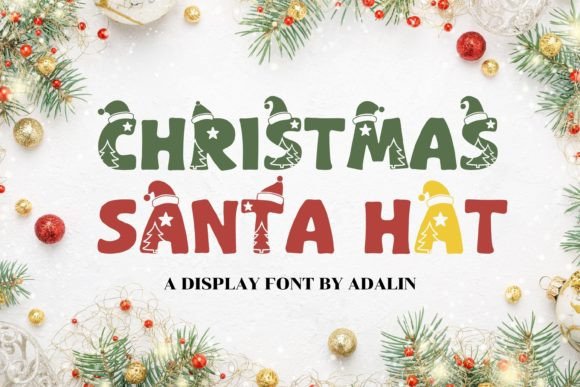
Christmas Santa Hat Font: A Cute Decorative Font for Your Holiday Projects
Are you looking for a fun and festive font to add to your holiday projects? Look no further than the Christmas Santa Hat Font! This adorable font is perfect for crafting, Cricut, Procreate, Christmas gifts, kids’ projects, Christmas cards, social media designs, signs, t-shirt designs, greeting cards, invitations, mugs, banners, and much more.
What is Christmas Santa Hat Font?
Christmas Santa Hat Font is a unique and creative font that features a cute and playful design. The font is inspired by the iconic Santa hat and is perfect for adding a touch of holiday cheer to your projects. The font is highly versatile and can be used for a wide range of applications, from digital designs to print projects.
Features of Christmas Santa Hat Font
- Cute and Playful Design: The Christmas Santa Hat Font features a cute and playful design that is sure to add a touch of holiday cheer to your projects.
- Highly Versatile: The font is highly versatile and can be used for a wide range of applications, from digital designs to print projects.
Uses for Christmas Santa Hat Font
Christmas Santa Hat Font is a versatile font that can be used for a wide range of applications. Here are some ideas for using this font:
- Crafting: Use the font to create festive crafts, such as holiday cards, gift tags, and decorations.
- Cricut: Use the font with your Cricut machine to create custom holiday projects, such as vinyl decals, iron-on designs, and paper crafts.
- Procreate: Use the font to create digital art and designs, such as holiday-themed illustrations and graphics.
- Christmas Gifts: Use the font to create custom holiday gifts, such as personalized mugs, t-shirts, and gift tags.
- Kids’ Projects: Use the font to create fun and festive holiday projects with kids, such as holiday cards, decorations, and crafts.
- Christmas Cards: Use the font to create custom holiday cards for friends and family.
- Social Media Designs: Use the font to create festive social media designs, such as holiday-themed graphics and posts.
- Signs: Use the font to create custom holiday signs, such as welcome signs and directional signs.
- T-Shirt Designs: Use the font to create custom holiday t-shirt designs.
- Greeting Cards: Use the font to create custom holiday greeting cards.
- Invitations: Use the font to create custom holiday invitations.
- Mugs: Use the font to create custom holiday mugs.
- Banners: Use the font to create custom holiday banners.
Tips for Using Christmas Santa Hat Font
Here are some tips for using Christmas Santa Hat Font:
- Experiment with Different Sizes: Experiment with different font sizes to find the perfect size for your project.
- Combine with Other Fonts: Combine Christmas Santa Hat Font with other fonts to create a unique and interesting design.
- Use with Images: Use the font with images, such as holiday-themed illustrations and graphics.
- Make it Bold: Make the font bold to create a statement piece.
Christmas Santa Hat Font is a fun and festive font that is perfect for adding a touch of holiday cheer to your projects. With its cute and playful design, highly versatile, and easy to use, this font is a must-have for anyone looking to create holiday-themed designs. Whether you’re a crafter, a designer, or just someone who loves the holiday season, Christmas Santa Hat Font is a great addition to your font collection.